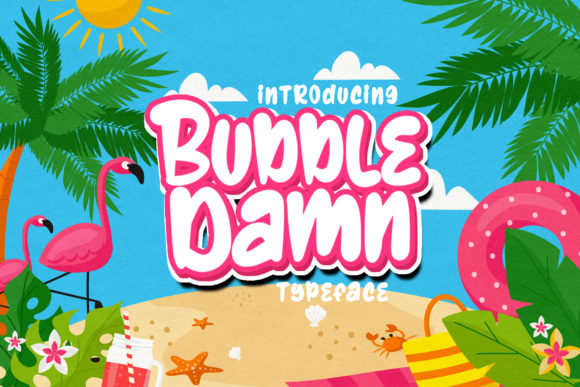
How BubbleDamn Brought Playful Energy to a Branding Project
Practical Observations in Real-World Use
- Shop signage: The font scaled well and remained legible even from a distance.
- Business cards: The rounded letters gave the brand a soft, inviting edge.
- Product labels: It worked best in short-form text, like flavor names or ingredient highlights.
- Social media posts: Paired with bright colors and clean layouts, it created an engaging visual rhythm.
- Website headers: Used sparingly in hero sections, it gave the homepage a lively, modern feel.
Final Thoughts: When to Use BubbleDamn in Client Work
- Logo design for lifestyle, wellness, and creative brands
- Packaging design for boutique shops or artisanal products
- Social media templates and digital graphics
- Editorial headers and event posters
- Merchandise and printed marketing materials